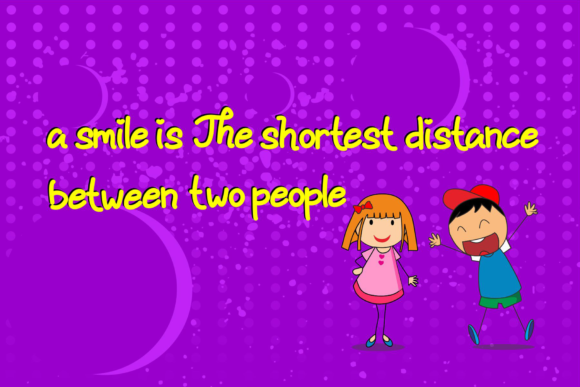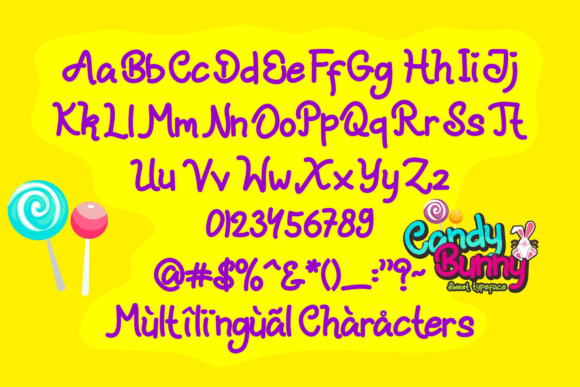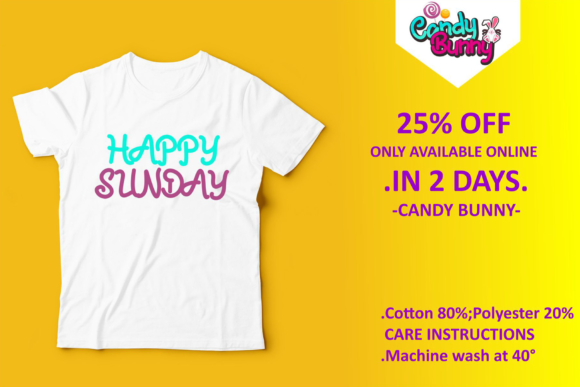
Bring a Touch of Whimsy to Your Designs with Candy Bunny Font
Have you ever stared at a blank page, struggling to find the perfect font to match your creative vision? That’s where the magic happens – when a single font can transport your imagination to a world of endless possibilities. For me, it was the moment I discovered the Candy Bunny Font, a sweet and friendly display font that’s as delightful as it is versatile.
Crafted to add a playful twist to your designs, Candy Bunny Font is the perfect companion for creating stunning greeting cards, beautiful stationery, and eye-catching social media posts. Its charming aesthetic makes it a valuable asset for designers looking to add a touch of whimsy to their work. Whether you’re a seasoned pro or a budding creative, the Candy Bunny Font is sure to inspire your next project.
Candy Bunny Font Key Features
- Font Family: Candy Bunny Font is a unique, handwritten font designed for creative and playful purposes.
- Size: The font comes in multiple weights, ranging from 200 to 900, allowing designers to choose the perfect level of boldness or delicacy for their project.
- Unique Characteristics: Features a mix of whimsical and elegant elements, making it suitable for a wide range of creative applications, from children’s book illustrations to fashion branding.
- Character Set: Includes a comprehensive set of characters, including uppercase and lowercase letters, numbers, punctuation marks, and special symbols, to support various languages and design needs.
Candy Bunny Font Review
First off, I want to say that I really love the whimsical feel of the Candy Bunny Font. ✨ The cursive script is perfect for creating a playful and childlike atmosphere in any design project. The font is highly customizable, allowing you to adjust the size, color, and spacing to your liking. ✨ It’s also incredibly versatile and can be used for a wide range of applications, from packaging to social media graphics.
However, I do have a few concerns. ⚠️ Firstly, the font can be a bit too sweet and may not be suitable for more serious or professional projects. Additionally, the font’s cursive script can be difficult to read in certain font sizes or at high resolutions. ⚠️ It’s also worth noting that the font may not be suitable for large blocks of text, as it can be overwhelming and difficult to read.
Design Considerations
If you’re looking to use the Candy Bunny Font, I would recommend using it in moderation and combining it with other fonts to create a balanced design. Here are a few tips to keep in mind:
- Use the font in conjunction with a clear and readable font, such as Arial or Helvetica, for body text.
- Keep the font size relatively small, around 18-24 points, to avoid overwhelming the reader.
- Use the font sparingly, reserving it for headings, titles, or other design elements where it can shine.
Overall, I think the Candy Bunny Font is a great addition to any designer’s toolkit. While it has its limitations, it’s a fun and creative font that can add a lot of personality to your designs.
The Candy Bunny Font is ideal for creating playful and whimsical designs. Some common use cases include:
- Party invitations and decorations.
- Children’s books and educational materials.